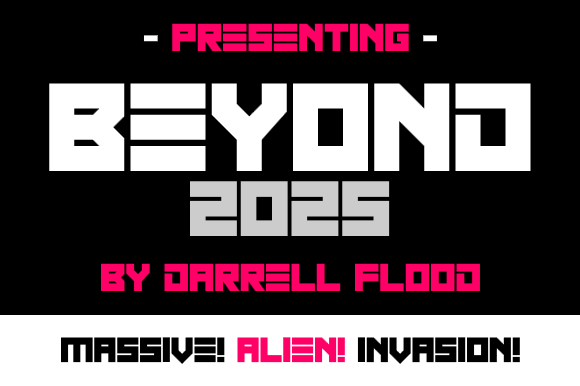
Beyond 2025 Font: A Futuristic Typeface for the Modern Designer
In the realm of typography, fonts play a crucial role in conveying the tone and aesthetic of a design. For designers and crafters looking to create a futuristic, high-tech visual identity, the Beyond 2025 font is an exceptional choice. This bold, high-impact sci-fi font is designed in an angular, expressive style, making it perfect for tech themes, advanced exploration, and music gigs.
Unleash Your Creativity with Beyond 2025
Beyond 2025 is more than just a font – it’s a statement piece. Its unique, angular design is sure to grab attention and leave a lasting impression. Whether you’re working on a project for a tech startup, a music festival, or a futuristic-themed event, this font is guaranteed to elevate your design to the next level. The bold, high-impact style of Beyond 2025 makes it ideal for headlines, titles, and promotional materials.
Key Features of Beyond 2025 Font
- Bold and High-Impact Design: The Beyond 2025 font boasts a bold, high-impact design that’s sure to turn heads.
- Angular and Expressive Style: The font’s angular, expressive style gives it a unique, futuristic feel that’s perfect for tech-themed designs.
- Perfect for Sci-Fi and Tech Projects: Whether you’re working on a sci-fi movie poster, a tech startup’s branding, or a futuristic-themed event, Beyond 2025 is the perfect choice.
- Great for Music Gigs and Festivals: The font’s bold, attention-grabbing design makes it an excellent choice for music gigs and festivals.
Why Choose Beyond 2025 Font?
With so many fonts available, why choose Beyond 2025? Here are just a few reasons why this font stands out from the rest:
- Unique Design: The Beyond 2025 font has a unique, one-of-a-kind design that’s sure to set your project apart.
- Versatility: This font can be used for a wide range of projects, from tech and sci-fi to music and events.
- High-Quality: The font is designed with high-quality, crisp lines that will look great in any design.
Tips for Using Beyond 2025 Font
To get the most out of the Beyond 2025 font, here are a few tips:
- Use it for Headlines and Titles: The font’s bold design makes it perfect for headlines and titles.
- Pair it with a Simple Font: For body text, pair Beyond 2025 with a simple, easy-to-read font to create a striking contrast.
- Experiment with Colors and Effects: Don’t be afraid to get creative with colors and effects to make your design truly pop.
In conclusion, the Beyond 2025 font is an exceptional choice for designers and crafters looking to create a futuristic, high-tech visual identity. Its bold, high-impact design and angular, expressive style make it perfect for tech themes, advanced exploration, and music gigs. With its unique design, versatility, and high-quality lines, Beyond 2025 is sure to elevate your design to the next level.